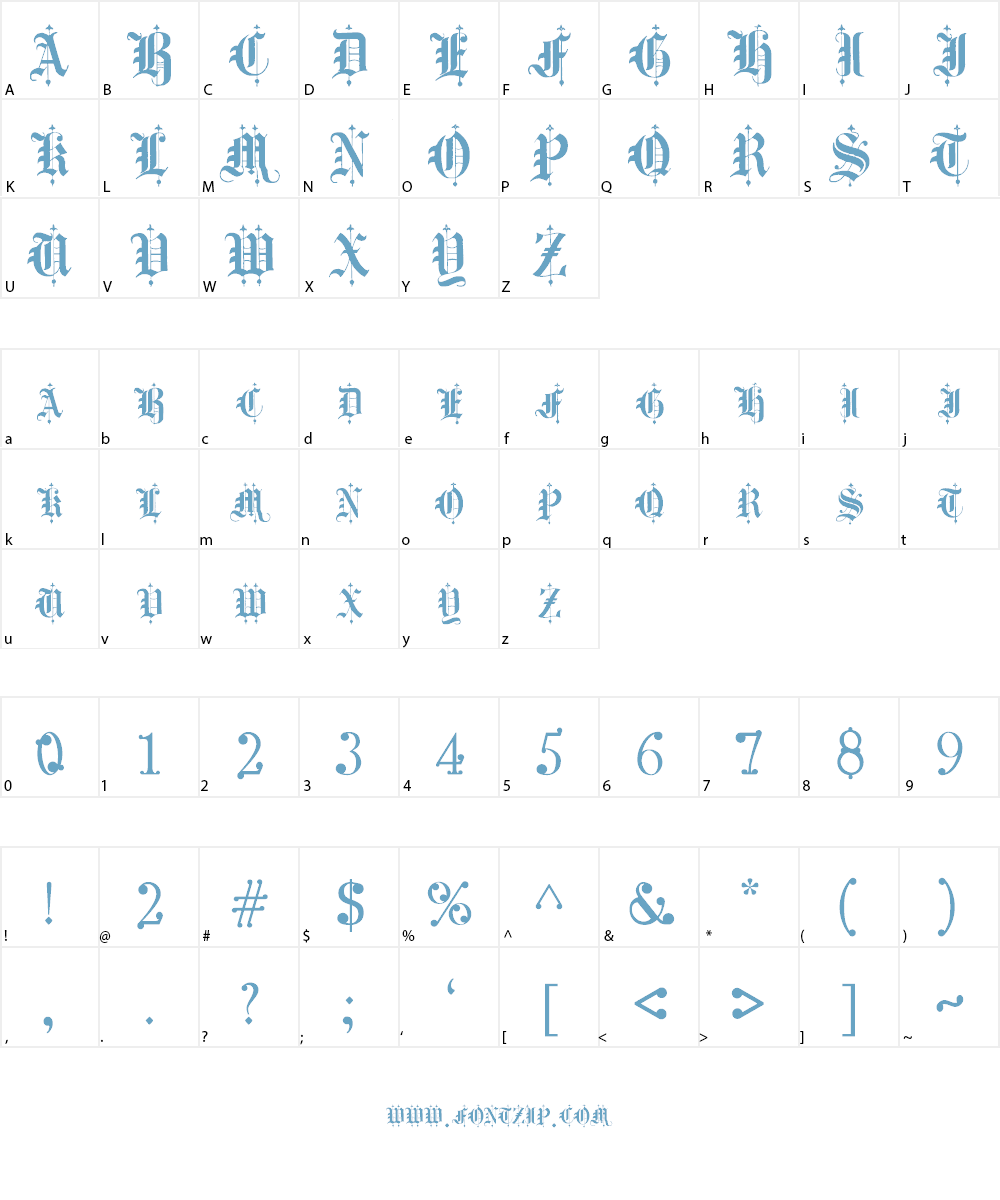
I saw these little storybook alphabet letters and I decided to clean them up a bit and then creating my own commas, slants, exclamation points, and other symbols. Enjoy!